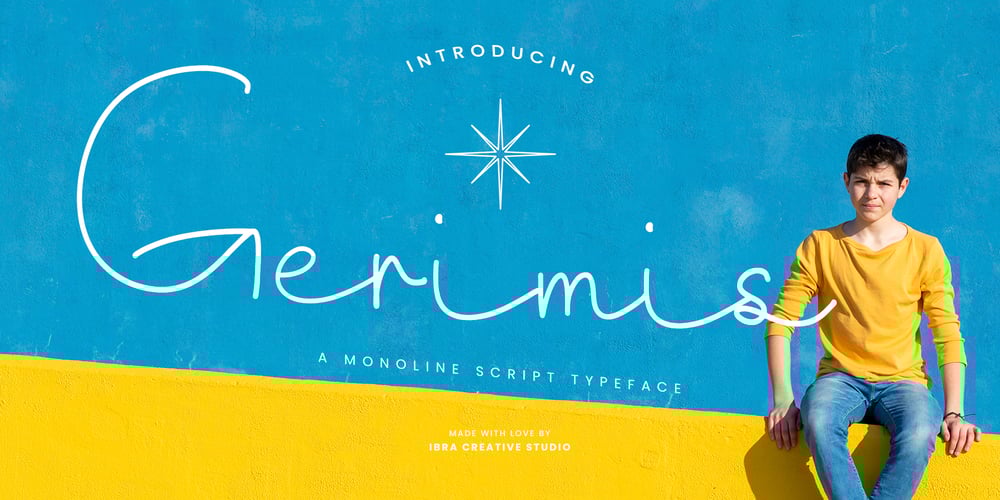
Gerimis Font Family was designed by Roisatul Azizah and published by IbraCreative. Gerimis contains 1 styles and family package options. Gerimis – A Monoline Script TypefaceGerimis, a monoline script typeface, gracefully marries simplicity with sophistication. The fluid strokes of each letter seamlessly flow into one another, creating a continuous, elegant line that exudes a sense of timeless charm. Its minimalist design and uniform weight across characters provide a clean and modern aesthetic, making it versatile for a range of design applications. Gerimis brings a sense of unity and balance to any project, whether it be invitations, branding, or creative endeavors. The consistency in line thickness reflects a harmonious balance, allowing for legibility without sacrificing the distinctive, handcrafted feel. With Gerimis, every word becomes a graceful dance of letters, embodying a refined simplicity that adds a touch of understated beauty to the written word.Gerimis is perfect for branding projects, logo, wedding designs, social media posts, advertisements, product packaging, product designs, label, photography, watermark, invitation, stationery, game, fashion and any projects.Fonts include multilingual support for; Afrikaans, Albanian, Czech, Danish, Dutch, English, Estonian, Finnish, French, German, Hungarian, Italian, Latvian, Lithuanian, Norwegian, Polish, Portuguese, Slovak, Slovenian, Spanish, Swedish.